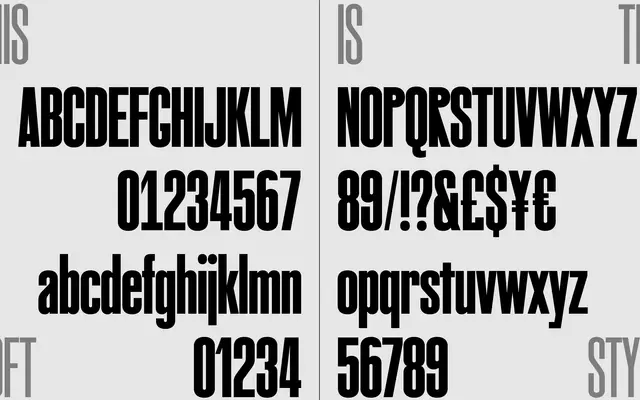
LargePoint
A headline-oriented grotesque developed with Matt Willey, offered in Sharp and Rounded styles across eight weights.
Originally conceived as a dynamic headline font in collaboration with designer Matt Willey, LargePoint has since expanded into two subfamilies: the sharp-edged LargePoint and the softened LargePoint Soft. Eight weights from Thin to Heavy make it flexible across editorial contexts, from fine display setting to heavy-impact titling. Its characterful construction positions it squarely at magazine and editorial designers working at large point sizes.
A high-contrast, characterful grotesque sans designed primarily for headline and display use, available in both Sharp and Rounded (Soft) variants across a wide weight range.